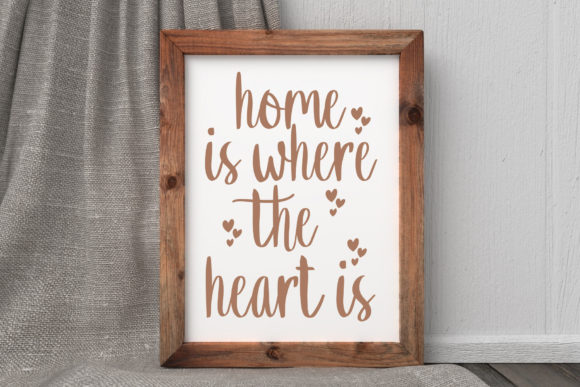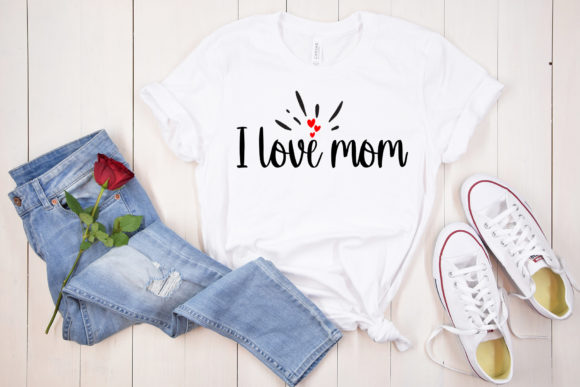
Crystallized Script Font
db-ku.com - Script & Handwritten -- Crystallized Script is a delicate, elegant and flowing handwritten font. It has beautiful and well balanced characters and as a result, it matches a wide pool of designs. Add it to your most creative ideas and notice how it makes them come alive!